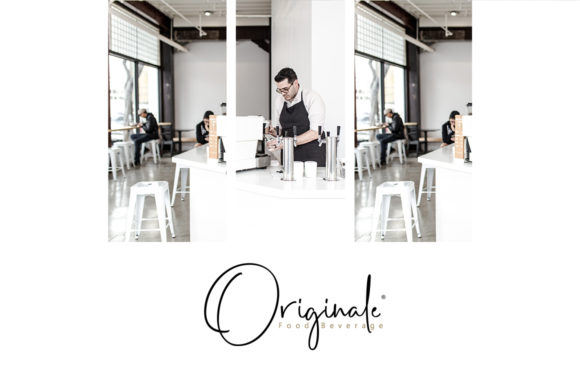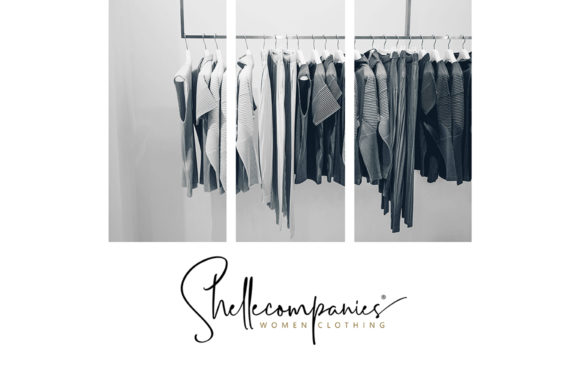
Alessa Beilaire Font
db-ku.com - Script & Handwritten -- The Alessa Beilaire is a simple and classy script font. It comes in three elegant styles with a great readability.